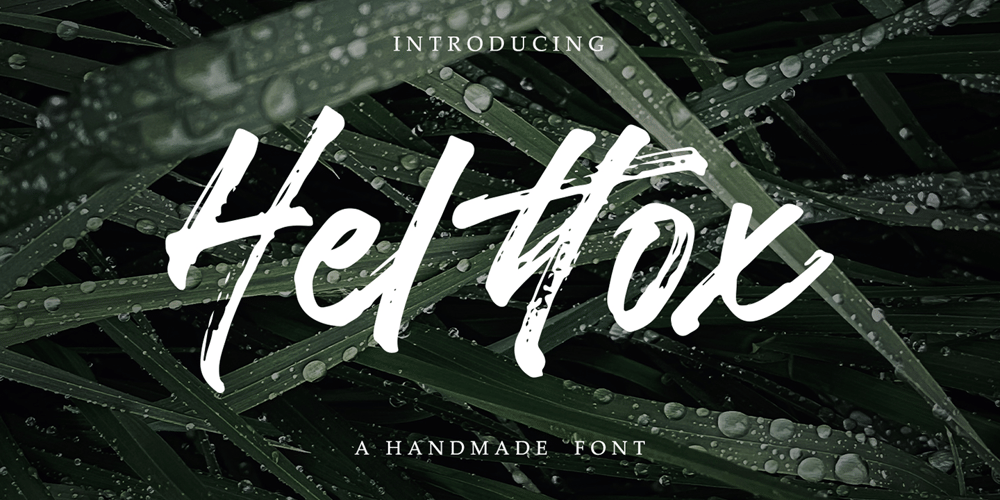
Helttox Brush Font Family was designed by khaidir and published by Gatype. Helttox Brush contains 1 styles and family package options. Helttox is a casual hand brush script so it has a nice texture and flow. Helttox has many alternatives to make it look like real handwriting; four sets of lowercase and two sets of uppercase. suitable for design projects; logos, branding, posters, quotes, beautiful wedding invitations, beautiful stationery art, eye-catching social media posts, and cute greeting cards and other designs. It is unique, very natural and attractive